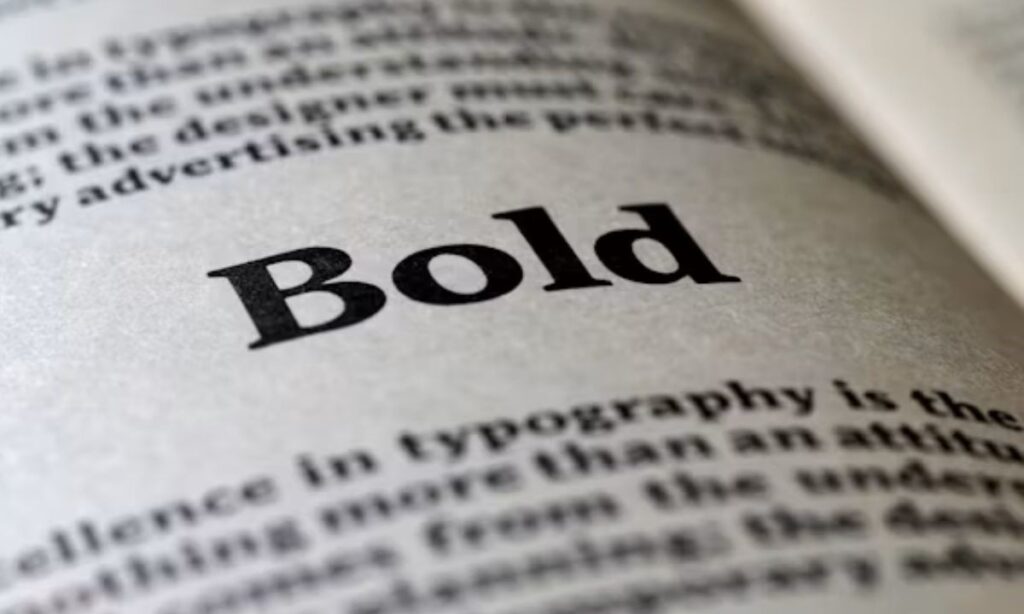
Bold Text Generator – 100% Free, Copy & Paste Instantly
A Bold Text Generator converts regular text into bold Unicode text that you can copy and paste into social media profiles, messages, usernames, bios, and online content. It creates bold-looking characters without requiring font installation or additional software.
This guide explains how a Bold Text Generator works, its features, benefits, supported platforms, limitations, and best practices.
What Is a Bold Text Generator?
Bold Text Generator
Users type their text, generate bold styles instantly, copy the result, and paste it wherever Unicode text is supported.
Common uses include:
How Does a Bold Text Generator Work?
A Bold Text Generator replaces each standard character with its bold Unicode equivalent.
The process is simple:
Examples of Bold Unicode Text
Here are some common examples.
Regular TextBold Unicode Text
Hello𝐇𝐞𝐥𝐥𝐨
Welcome𝐖𝐞𝐥𝐜𝐨𝐦𝐞
Bold Text𝐁𝐨𝐥𝐝 𝐓𝐞𝐱𝐭
Generator𝐆𝐞𝐧𝐞𝐫𝐚𝐭𝐨𝐫
Copy Paste𝐂𝐨𝐩𝐲 𝐏𝐚𝐬𝐭𝐞
These characters are generated using Unicode, making them easy to copy and paste.
Features of a Bold Text Generator
Most generators include useful features.
Instant Conversion
Generate bold text immediately while typing.
Unicode Compatibility
Most modern devices and browsers support bold Unicode characters.
Why Use a Bold Text Generator?
Bold text helps important information stand out.
Benefits include:
• Highlight keywords
• Improve profile appearance
• Increase text visibility
• Create attractive usernames
• Strengthen personal branding
• Enhance social media posts
• Save time with instant formatting
Where Can You Use Bold Text?
Bold Unicode text works on many online platforms.
TwitchStream profiles
PinterestProfile descriptions
Always preview the text before publishing to confirm proper display.
Bold Text for Social Media
Bold text attracts attention in crowded feeds.
Popular uses include:
• Instagram bios
• Facebook updates
• TikTok profiles
• X (Twitter) bios
• LinkedIn headlines
• YouTube descriptions
Use bold text sparingly to maintain readability.
Bold Text for Gaming
Many gamers use bold Unicode characters for:
• Usernames
• Clan names
• Team tags
• Character names
• Stream profiles
Some games limit Unicode support, so test the text before saving your profile.
Bold Text for Branding
Businesses use bold text to emphasize important information.
Examples include:
• Promotional announcements
• Product names
• Campaign headlines
• Social media posts
• Marketing graphics
Bold formatting improves visibility when used in moderation.
Tips for Using Bold Text Effectively
Choose bold text carefully.
Best practices include:
• Highlight only important words.
• Keep text readable.
• Maintain consistent formatting.
• Test compatibility on different devices.
• Avoid bolding every sentence.
• Combine bold text with quality content.
Balanced formatting improves user experience.
Limitations of Bold Text Generators
Although useful, bold Unicode text has limitations.
Platform Compatibility
Some websites may not support every Unicode character.
Accessibility
Decorative Unicode characters may reduce readability for screen readers.
So go ahead, give it a try! Use it wisely, keep your formatting clean and readable, and let your bold text do the talking across all your favorite platforms. Whether you’re building your brand, leveling up your gaming profile, or just having fun with your socials, a little bold text can go a long way. Happy formatting! 🎉